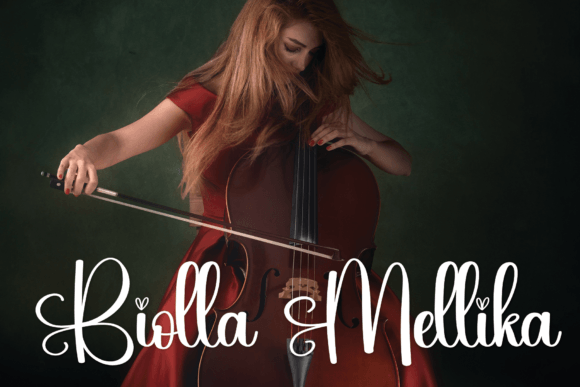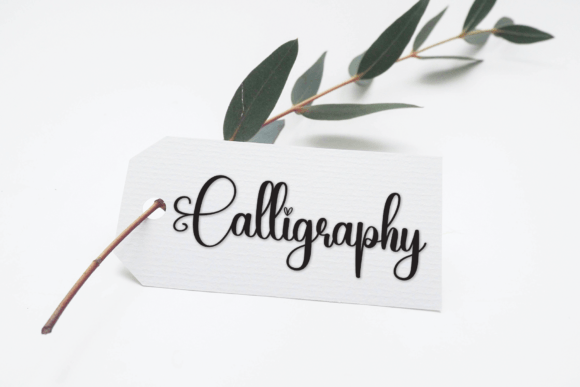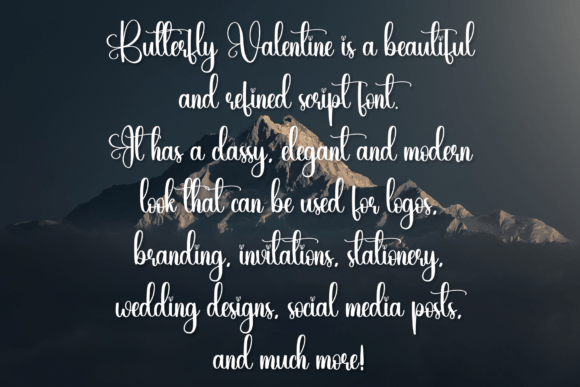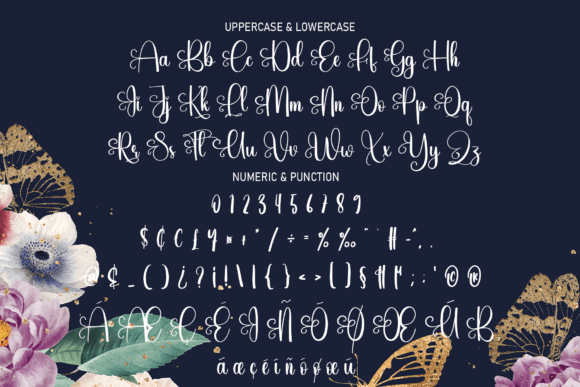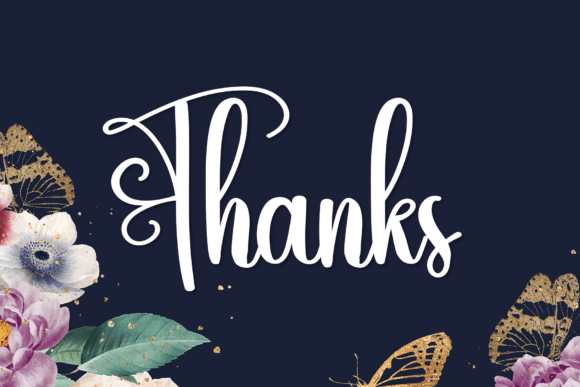
Introducing Butterfly Valentine Font: The Perfect Choice for Elegant Designs
Are you a designer or crafter looking for a font that exudes charm and elegance? Look no further than the Butterfly Valentine Font. This beautiful handwritten font is perfect for adding a touch of sophistication to your designs, making it ideal for wedding invitations, thank you cards, quotes, greeting cards, logos, business cards, and more.
The Charm of Butterfly Valentine Font
Butterfly Valentine Font is a stunning script font that feels equally charming and elegant. Its delicate and intricate strokes make it a perfect choice for designs that require a personal touch. The font’s elegant appearance is sure to capture the attention of your audience, making your designs stand out from the rest.
Perfect for Wedding and Love-Related Designs
As its name suggests, Butterfly Valentine Font is particularly well-suited for wedding and love-related designs. Its romantic and whimsical feel makes it perfect for wedding invitations, save-the-date cards, and other wedding-related stationery. The font’s elegant appearance also makes it suitable for Valentine’s Day-themed designs, such as greeting cards, posters, and social media graphics.
Versatile and Easy to Use
Butterfly Valentine Font is a versatile font that can be used in a variety of design projects. Its elegant appearance makes it suitable for:
- Quotes and typographic posters
Why Choose Butterfly Valentine Font?
So, why should you choose Butterfly Valentine Font for your designs? Here are just a few reasons:
- Elegant appearance: The font’s delicate and intricate strokes make it a perfect choice for designs that require a personal touch.
- Versatile: The font can be used in a variety of design projects, from wedding invitations to logos and branding materials.
- Unique and eye-catching: The font’s unique and elegant appearance is sure to capture the attention of your audience.
Tips for Using Butterfly Valentine Font
Here are a few tips for using Butterfly Valentine Font in your designs:
- Pair it with a simple font: Pair Butterfly Valentine Font with a simple font to create a beautiful contrast and make your design stand out.
- Use it for headings and titles: The font’s elegant appearance makes it perfect for headings and titles, adding a touch of sophistication to your design.
- Experiment with colors and textures: Experiment with different colors and textures to add depth and interest to your design.
In conclusion, Butterfly Valentine Font is a beautiful and elegant script font that is perfect for designers and crafters looking to add a touch of sophistication to their designs. Its delicate and intricate strokes make it a perfect choice for wedding invitations, thank you cards, quotes, greeting cards, logos, business cards, and more. With its versatile and easy-to-use nature, Butterfly Valentine Font is sure to become a favorite in your design arsenal.